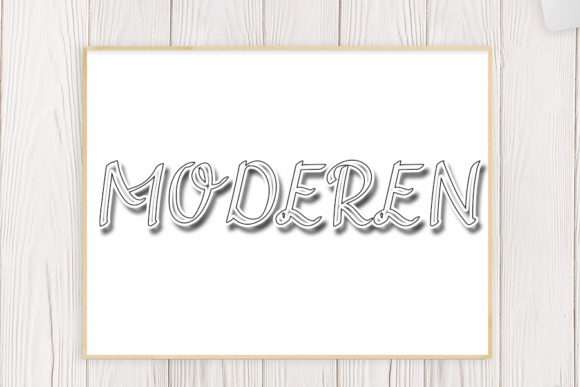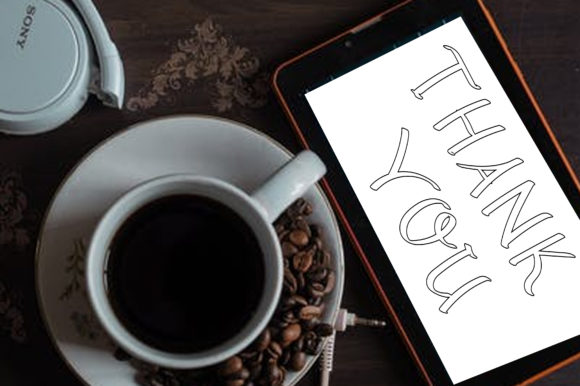
Introducing Hello February Font: Elevate Your Creations with a Fresh Outlined Display Font
Are you tired of using the same old fonts in your designs? Look no further! Hello February Font is here to revolutionize your typography with its fresh outlined display style. This versatile font is perfect for designers and crafters looking to add a touch of modernity to their creations. In this article, we’ll dive into the features and benefits of Hello February Font, and explore how it can become an incredibly valuable asset to your font library.
A Fresh Perspective on Typography
Hello February Font is a beautifully crafted outlined display font that boasts a unique and refreshing style. Its clean lines, precise curves, and carefully balanced proportions make it perfect for a wide range of applications, from branding and advertising to packaging and digital media. Whether you’re working on a new project or looking to revamp your existing designs, Hello February Font is sure to make a statement.
Key Features of Hello February Font
- Outlined Display Style: Hello February Font features a stunning outlined design that adds a touch of sophistication to any creation.
- Fresh and Modern: This font’s clean and minimalist aesthetic makes it perfect for designers and crafters looking for a modern typography solution.
- Versatile: Hello February Font can be used for a wide range of applications, including branding, advertising, packaging, digital media, and more.
- Easily Readable: Despite its outlined design, Hello February Font remains easily readable, making it perfect for body text and headings.
Benefits of Using Hello February Font
So, why should you choose Hello February Font for your next project? Here are just a few benefits of using this incredible font:
- Elevate Your Designs: Hello February Font has the potential to elevate any creation, adding a touch of modernity and sophistication to your designs.
- Stand Out from the Crowd: With its unique outlined display style, Hello February Font is sure to make your designs stand out from the crowd.
- Save Time: With Hello February Font, you can create stunning designs in no time, thanks to its easily readable and versatile design.
- Expand Your Font Library: Adding Hello February Font to your library will give you access to a wide range of creative possibilities, allowing you to experiment with new typography styles and ideas.
Who Can Benefit from Hello February Font?
Hello February Font is perfect for a wide range of designers and crafters, including:
- Graphic Designers: Add a touch of modernity to your branding, advertising, and packaging designs with Hello February Font.
- Digital Media Specialists: Use Hello February Font to create stunning digital media, including social media graphics, blog posts, and more.
- Crafters: Add a personal touch to your craft projects, including handmade cards, invitations, and DIY decor.
- Small Business Owners: Elevate your small business’s branding and marketing materials with Hello February Font’s professional and modern design.
In conclusion, Hello February Font is an incredible asset to any font library. Its fresh outlined display style, versatility, and easily readable design make it perfect for a wide range of applications. Whether you’re a designer, crafter, or small business owner, Hello February Font is sure to elevate your creations and help you stand out from the crowd. So why wait? Add Hello February Font to your library today and discover a world of creative possibilities!